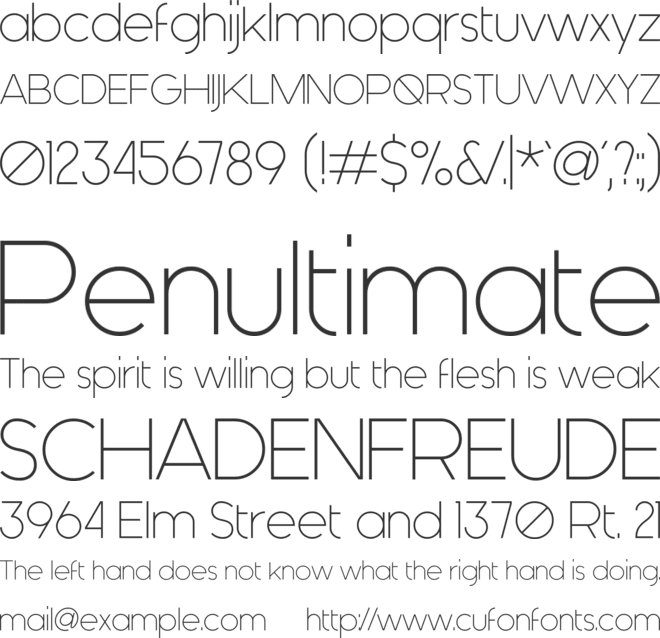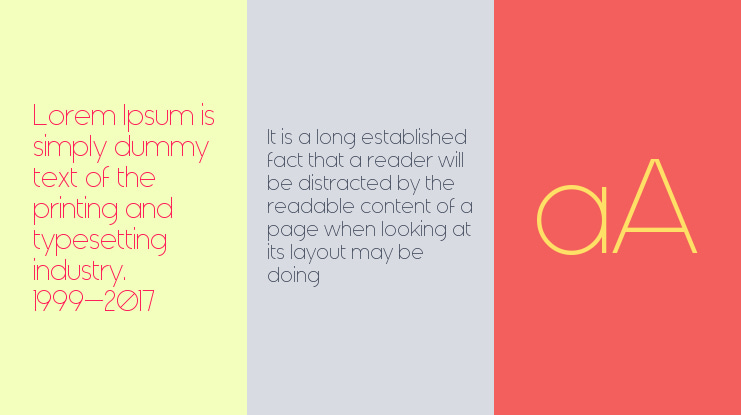
Generica Font Family
Michael Muranaka
Generica is our newest font with 2 FREE weights.
Generica exists to help you cross projects off of your daily list and move on. With one super light weight and one super chunky weight (with foreign characters and even some ligatures) you have all of your bases covered. Both weights are available to use for personal or commercial projects absolutely FREE!